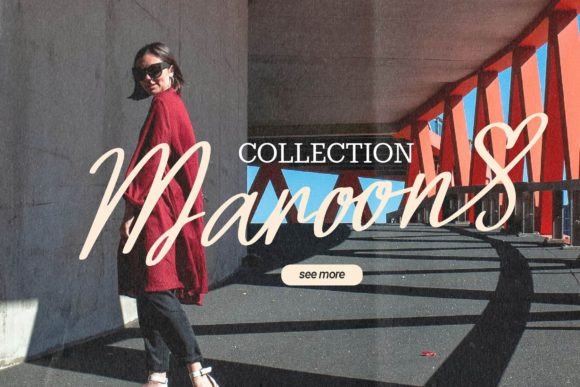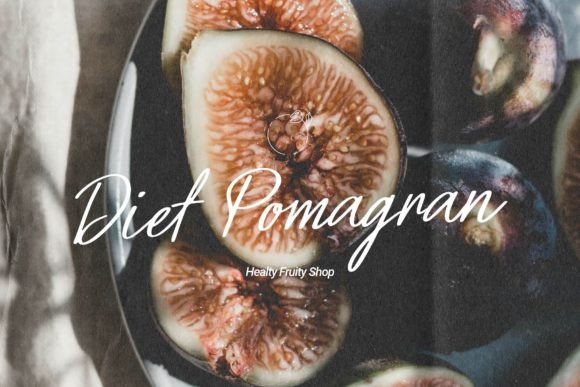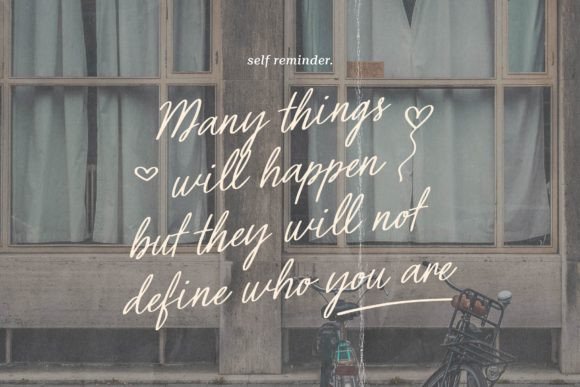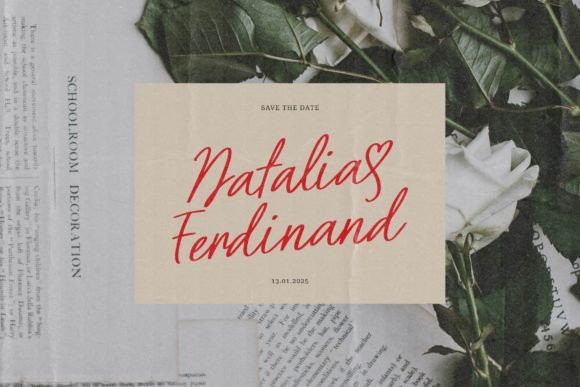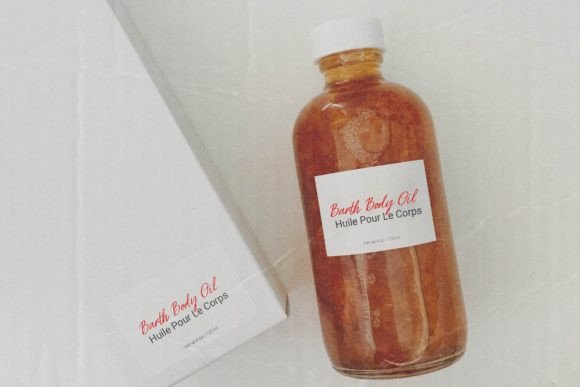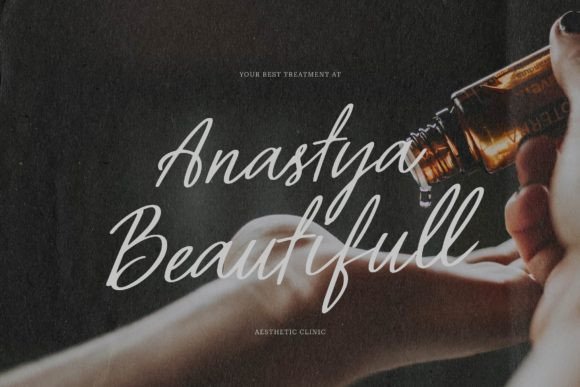
Adding a Personal Touch to Your Designs
Have you ever stared at a blank sheet of paper, trying to come up with the perfect way to express your gratitude to a friend or loved one? We’ve all been there, struggling to find the right words to convey our emotions. That’s where the right font can make all the difference. Enter the Babe Riesthy Font, a casual and playful handwritten font that’s sure to bring a smile to anyone’s face.
With its friendly and relaxed style, the Babe Riesthy Font is perfect for personal projects, greeting cards, or informal invitations. Its natural, free-flowing look gives your text a warm and approachable feel, making it easy to connect with your audience. For designers, this font is a valuable tool for adding a personal touch to their work, creating a sense of warmth and authenticity that’s hard to replicate with more formal fonts.
Babe Riesthy Font Key Features
- Font Family: Babe Riesthy Font is a unique script font designed to add a touch of elegance and sophistication to any design.
- Character Set: The font includes a wide range of characters, including uppercase and lowercase letters, numbers, and punctuation marks, making it suitable for various design applications.
- Unique Characteristics: The font features a unique, handwritten style with subtle imperfections and flourishes, giving it a personal and artistic touch.
Babe Riesthy Font Review
Overall, I’m impressed with the unique aesthetic of the Babe Riesthy Font. It’s a perfect fit for any project that requires a touch of playfulness and sophistication. ✨ The font’s elegant curves and smooth lines make it a joy to work with, and its versatility allows it to adapt to various design contexts.
Here are some of the font’s standout features:
- Unique letterforms that add a touch of personality to any design ✨
- Highly legible, making it perfect for body text and headings
- Supports a wide range of languages, making it a great choice for global projects
However, I do have a few reservations about the font’s limitations:
- Some users may find the font too playful or juvenile ⚠️
- The font’s weight is limited, which may not be suitable for projects requiring multiple font weights
Overall, I think the Babe Riesthy Font is a great addition to any designer’s toolkit. While it may not be perfect for every project, its unique charm and versatility make it a great choice for designers looking to add some personality to their designs. ✨
For best results, use the Babe Riesthy font in combination with other elegant and modern fonts. Experiment with different font sizes and styles to achieve a balanced look. This font is particularly suitable for creative and feminine designs, such as wedding invitations, fashion branding, and lifestyle magazines.
The Babe Riesthy font is commonly used in:
– Fashion branding and marketing materials
– Lifestyle magazines and blogs
– Social media graphics and advertising
Alternatives to Babe Riesthy Font
The Great Vibes Font is a modern, elegant script font that is perfect for creating a sense of sophistication and luxury. It is ideal for use in wedding invitations, advertising materials, and branding for high-end companies. Compared to Babe Riesthy Font, Great Vibes Font has a more refined and polished look, making it suitable for formal and professional applications.
Pacifico Font is a beautiful, handwritten font that is perfect for creating a relaxed and casual atmosphere. It is ideal for use in beach-themed projects, travel brochures, and branding for outdoor and recreational companies. Compared to Babe Riesthy Font, Pacifico Font has a more laid-back and carefree feel, making it suitable for projects that require a fun and adventurous vibe.
Alex Brush Font is a elegant, cursive font that is perfect for creating a sense of sophistication and elegance. It is ideal for use in wedding invitations, advertising materials, and branding for high-end companies. Compared to Babe Riesthy Font, Alex Brush Font has a more refined and polished look, making it suitable for formal and professional applications.
The Babe Riesthy Font includes a comprehensive character set, covering Latin, Cyrillic, and Greek alphabets, as well as a range of punctuation and symbol characters. The font also includes support for many languages, including English, Spanish, French, German, Italian, and Portuguese.